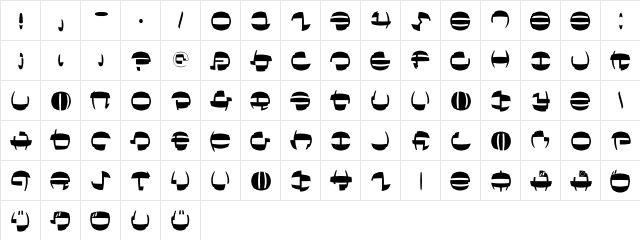
TokyoFrankfurtRound Regular
Design Context for TokyoFrankfurtRound Typeface
TokyoFrankfurtRound softens its letterforms with rounded terminals, giving it an approachable, friendly quality that works well in consumer-facing and digital contexts.
A natural fit for tech startups, health and wellness brands, children's products, and friendly consumer apps.
Font Pairing: Pairs well with a rounded or humanist sans for body copy, maintaining the friendly tone without relying on TokyoFrankfurtRound to carry extended reading.
Pro Tip: Pair TokyoFrankfurtRound with a geometric sans for a balanced system — the rounded softness works as a warm counterpoint to harder-edged companions.